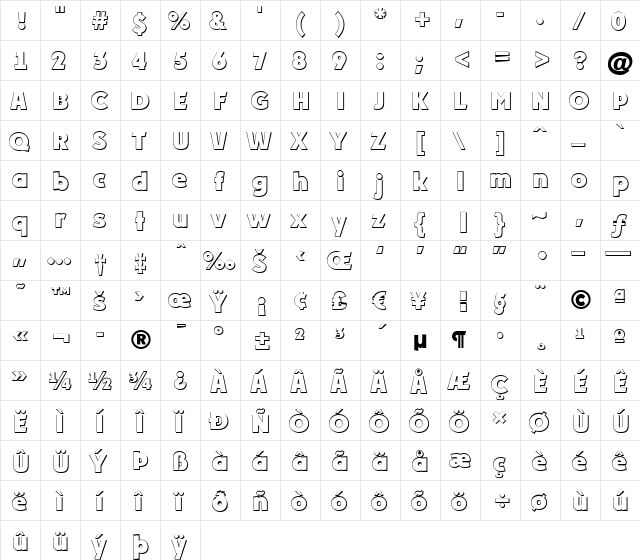
a_Plakat3Dxtr ExtraBold
| Designer | W.Chufarofsky & M.Slutsker |
Design Context for a_Plakat3Dxtr Typeface
a_Plakat3Dxtr is a composed and adaptable typeface that performs quietly and consistently across a wide range of design contexts. The heavy weight commands attention and anchors typographic hierarchies.